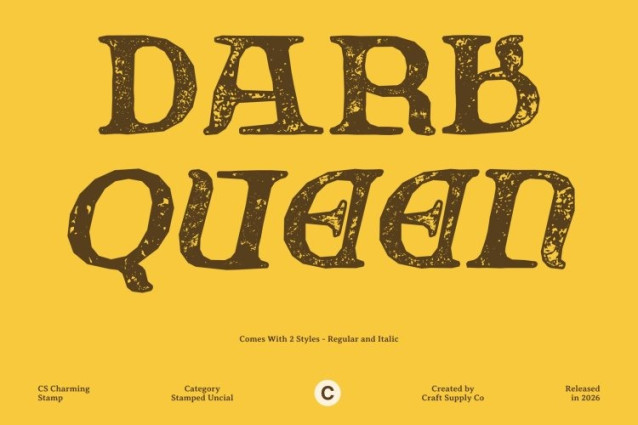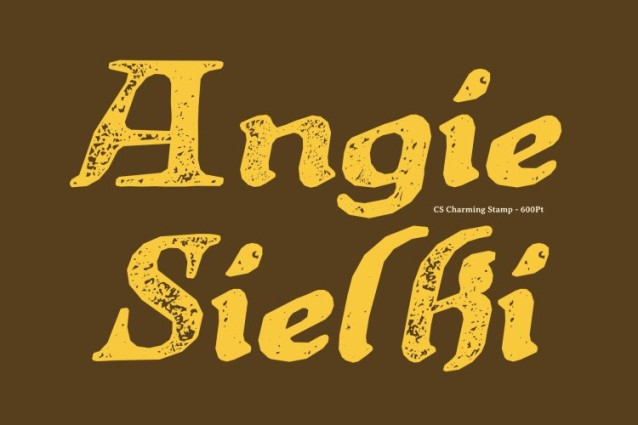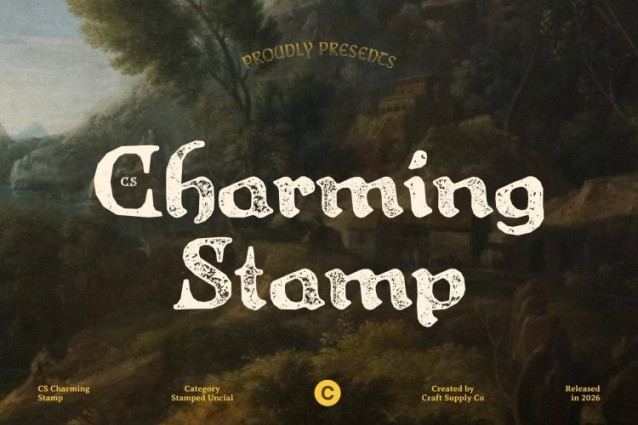
CS Charming Stamp Font
CS Charming Stamp Font – This is a classic display font inspired by the graceful uncial lettering of medieval manuscripts. Its rounded shapes, smooth curves, and bold strokes capture the essence of historical handwriting, creating a typeface that feels both nostalgic and elegant. Enhanced with a stamp effect, the font gains a textured, vintage quality reminiscent of aged ink impressions and traditional print techniques.
Artistic Letterforms with Handcrafted Appeal
The distinctive uncial letterforms give a unique artistic presence. Each character reflects the craftsmanship of ancient script traditions, while the subtle distressed texture introduces warmth and authenticity. The stamp effect adds gentle imperfections and ink-like variations that enrich the visual depth of the font without compromising its graceful structure.
Historical Charm with Expressive Personality
This font conveys the atmosphere of heritage and tradition while maintaining strong visual appeal in modern design contexts. Its rounded forms and balanced proportions create a welcoming and decorative style that feels both refined and expressive.
Perfect for Invitations, Heritage Branding, and Decorative Design
Ideal for wedding invitations, book covers, heritage branding, greeting cards, and vintage-inspired artwork, this font enhances projects with its blend of medieval elegance and handcrafted texture. The combination of uncial tradition and stamped character creates a typeface that feels timeless, artistic, and rich with historical charm.